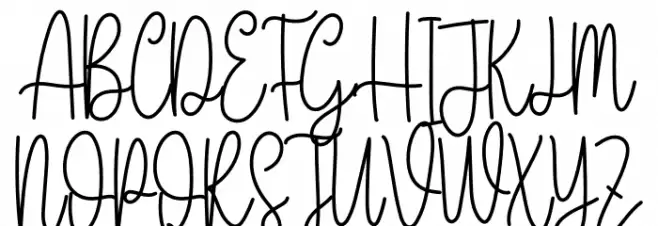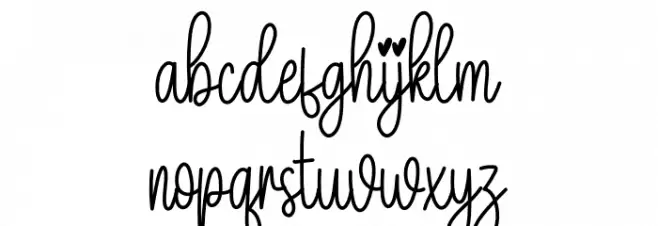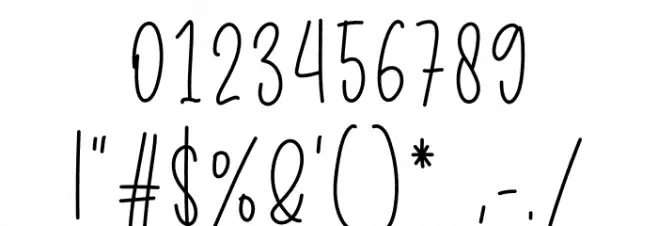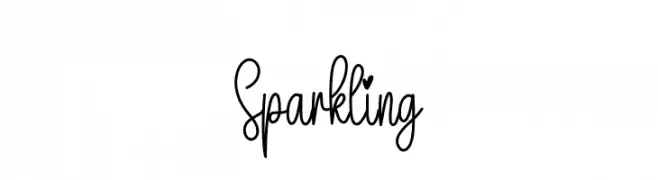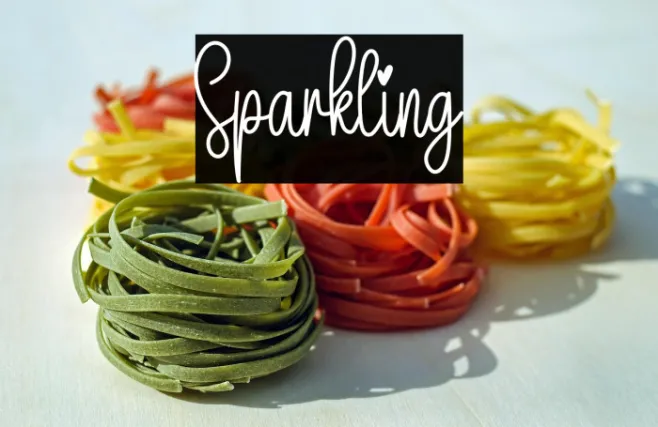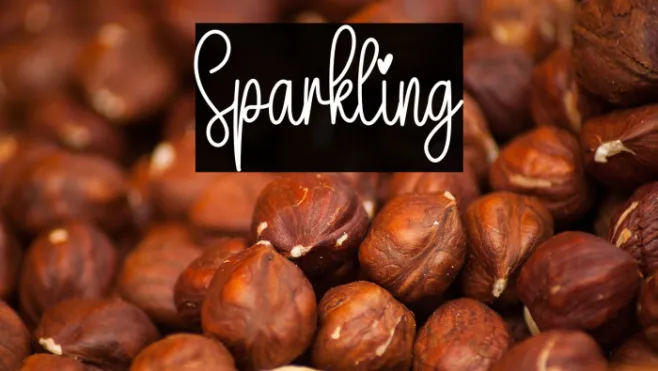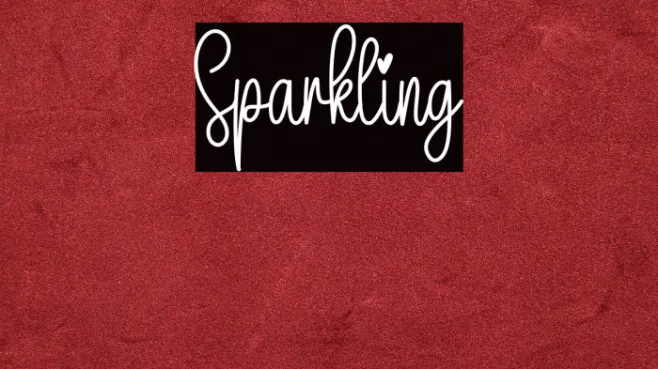
Sparkling
A playful, handwritten script font with a casual and whimsical style, featuring heart accents on certain letters.
Playful handwritten script with whimsical accents.
- Proposed Projects: Greeting cards, invitations, playful branding.
- Overall Style: Decorative
- Use Case: Logos, Invitations, Greeting cards